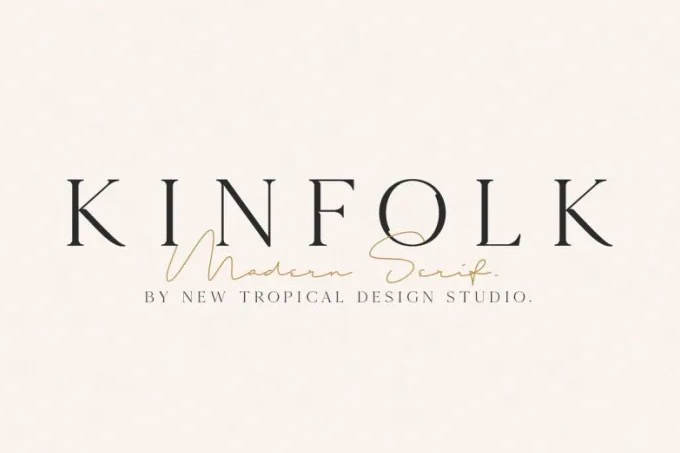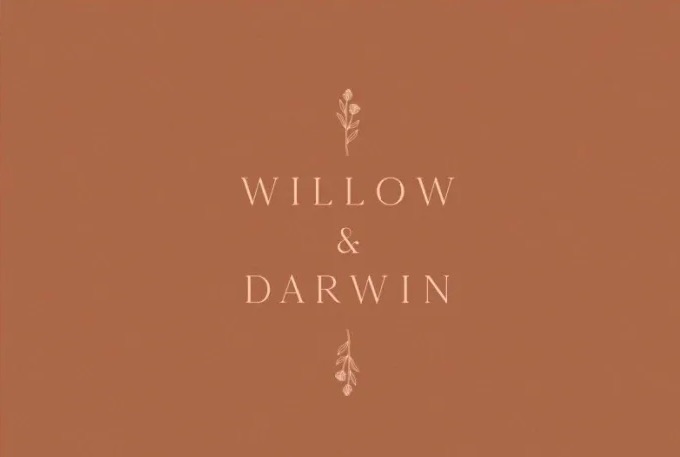
Kinfolk font is an old serif typeface that has a retro and vintage style. It was created and shared by New Tropical Design. With its versatile look, Kinfolk font can be well used for mastheads, logos, headlines, and more.
KINFOLK Script Serif Font